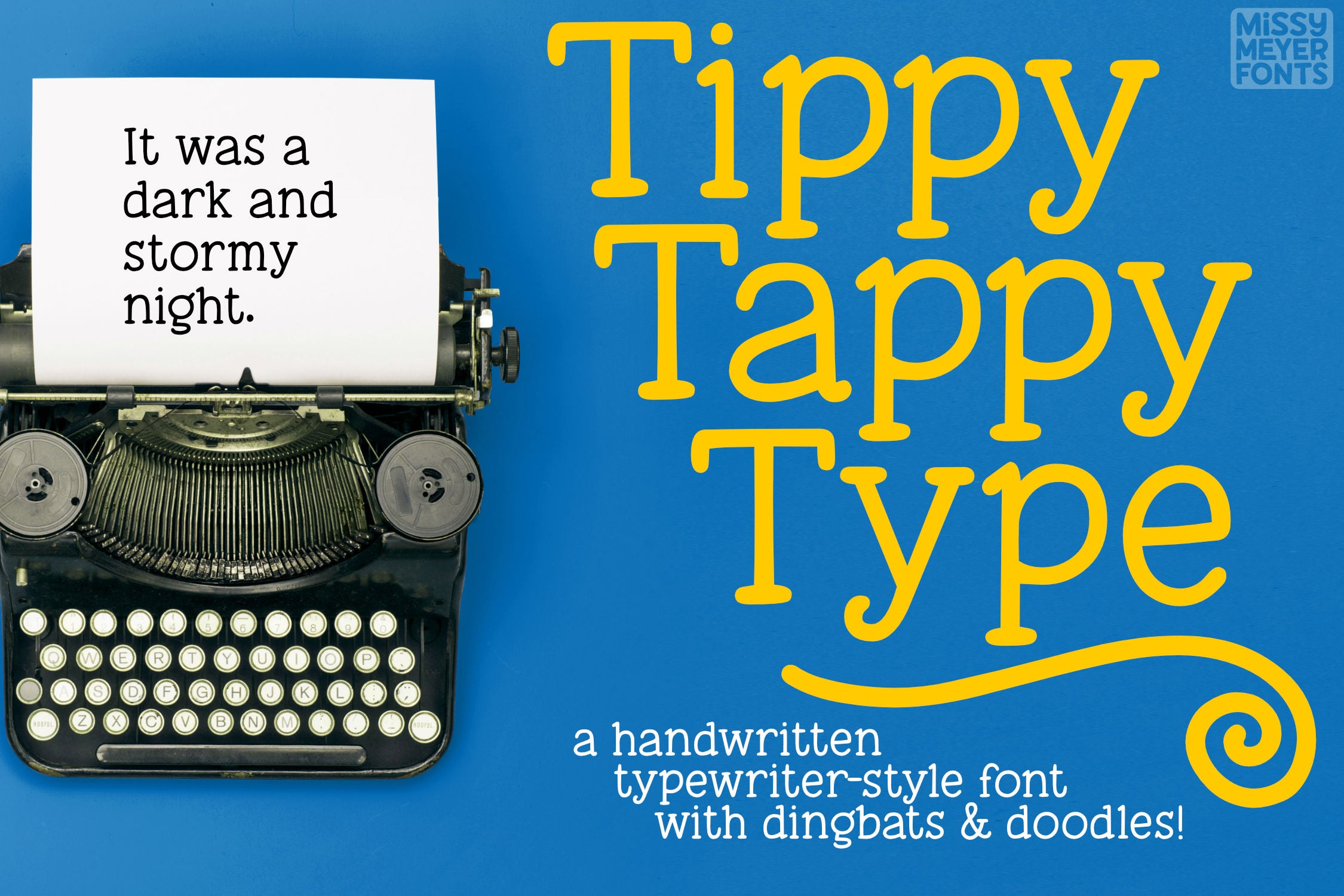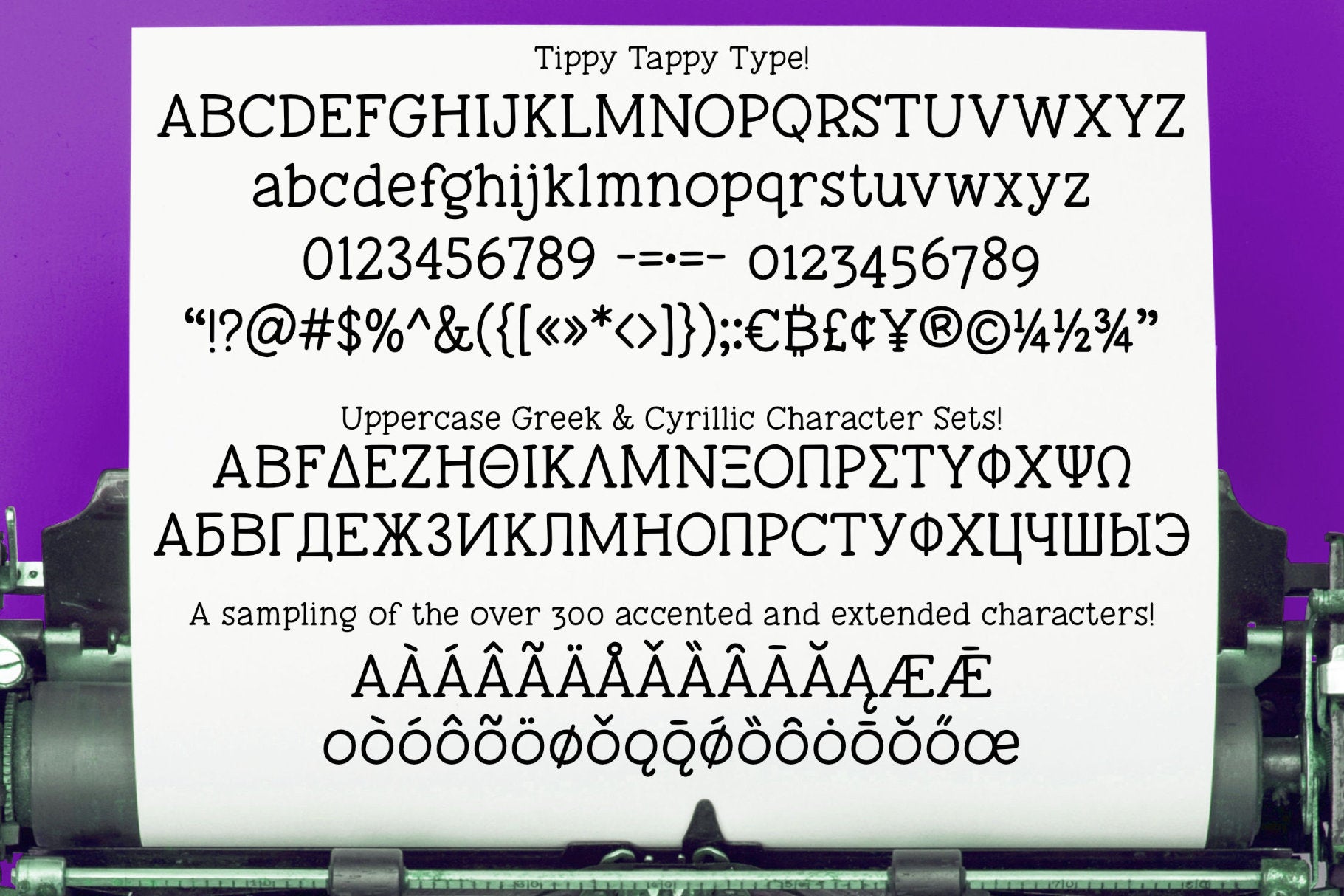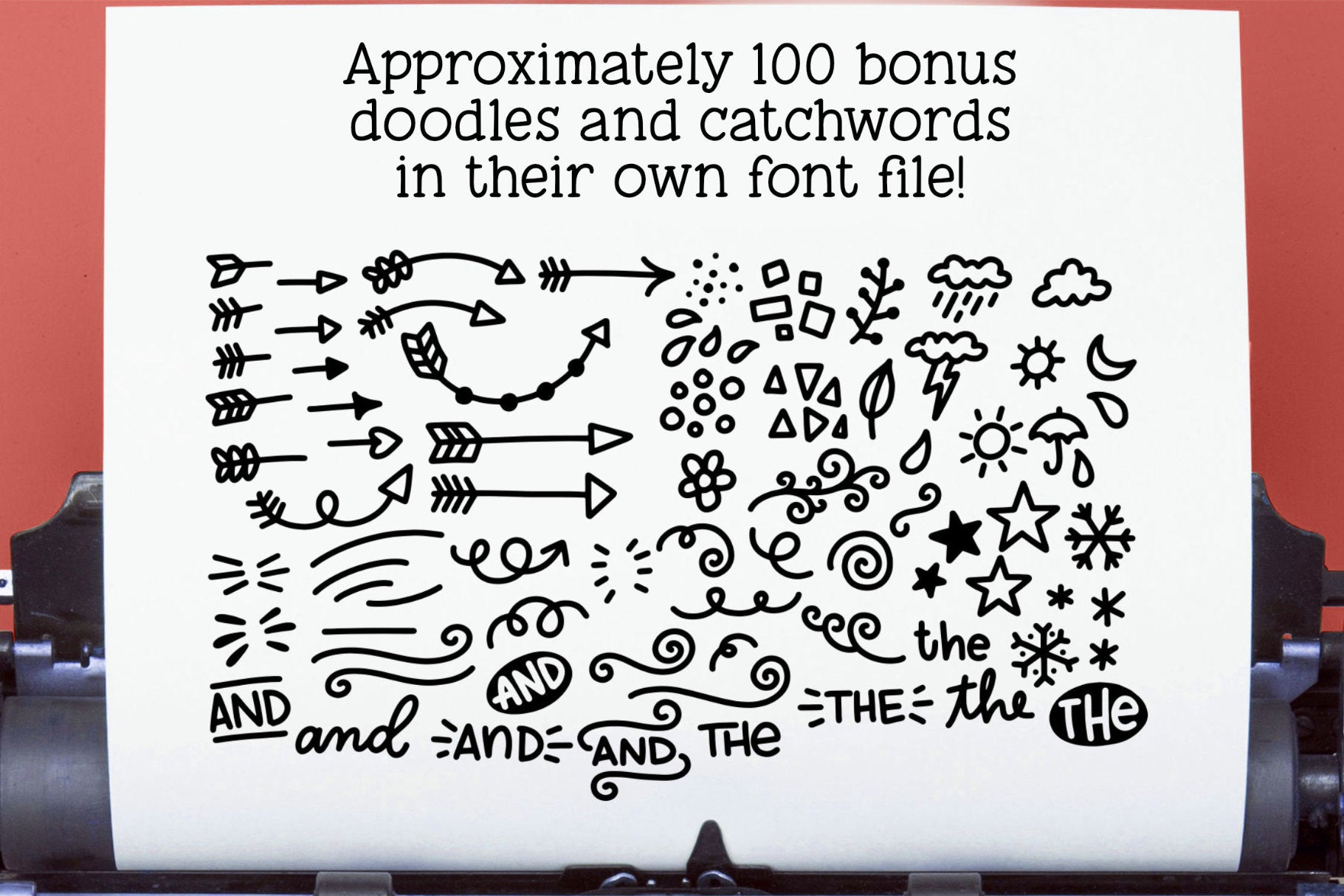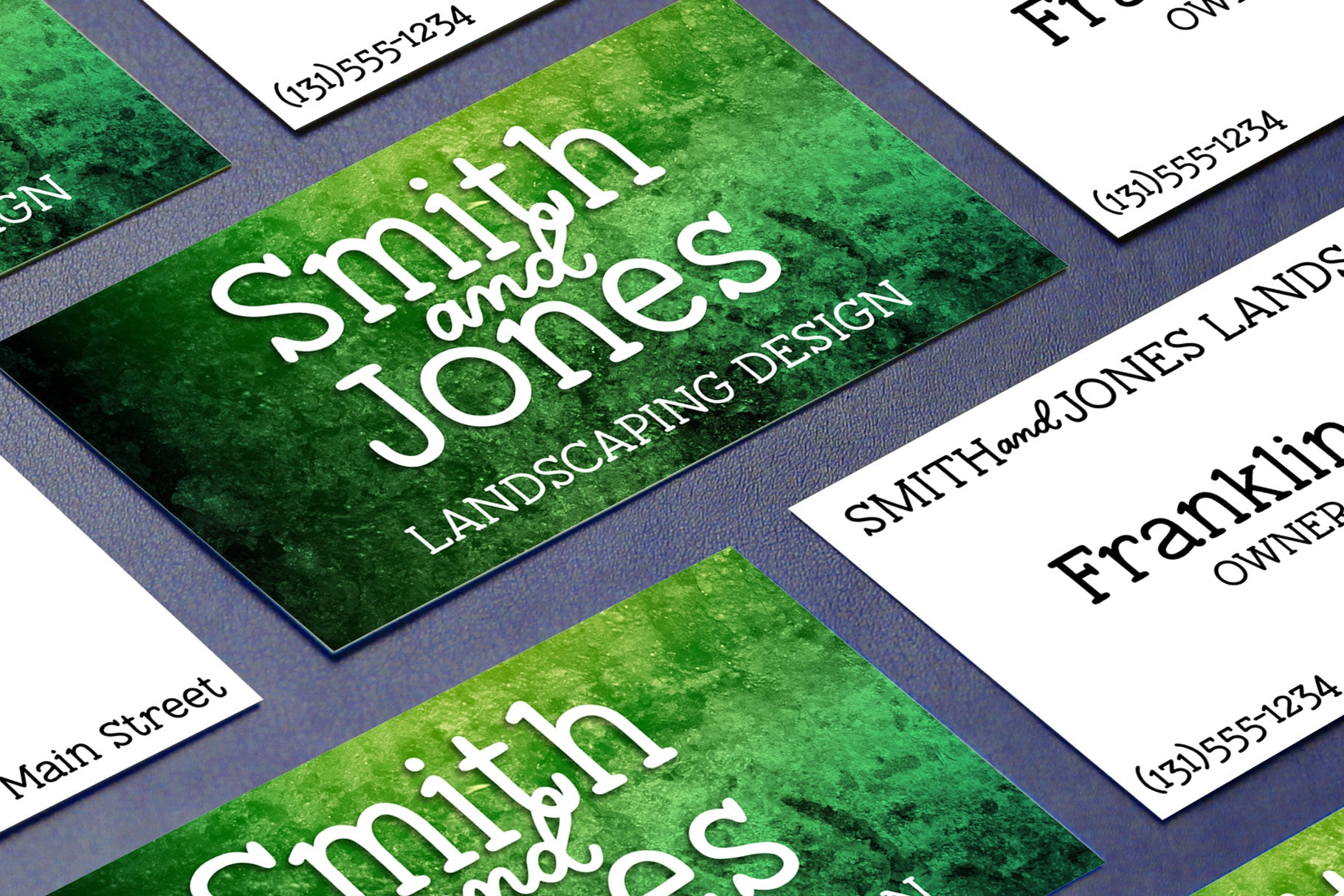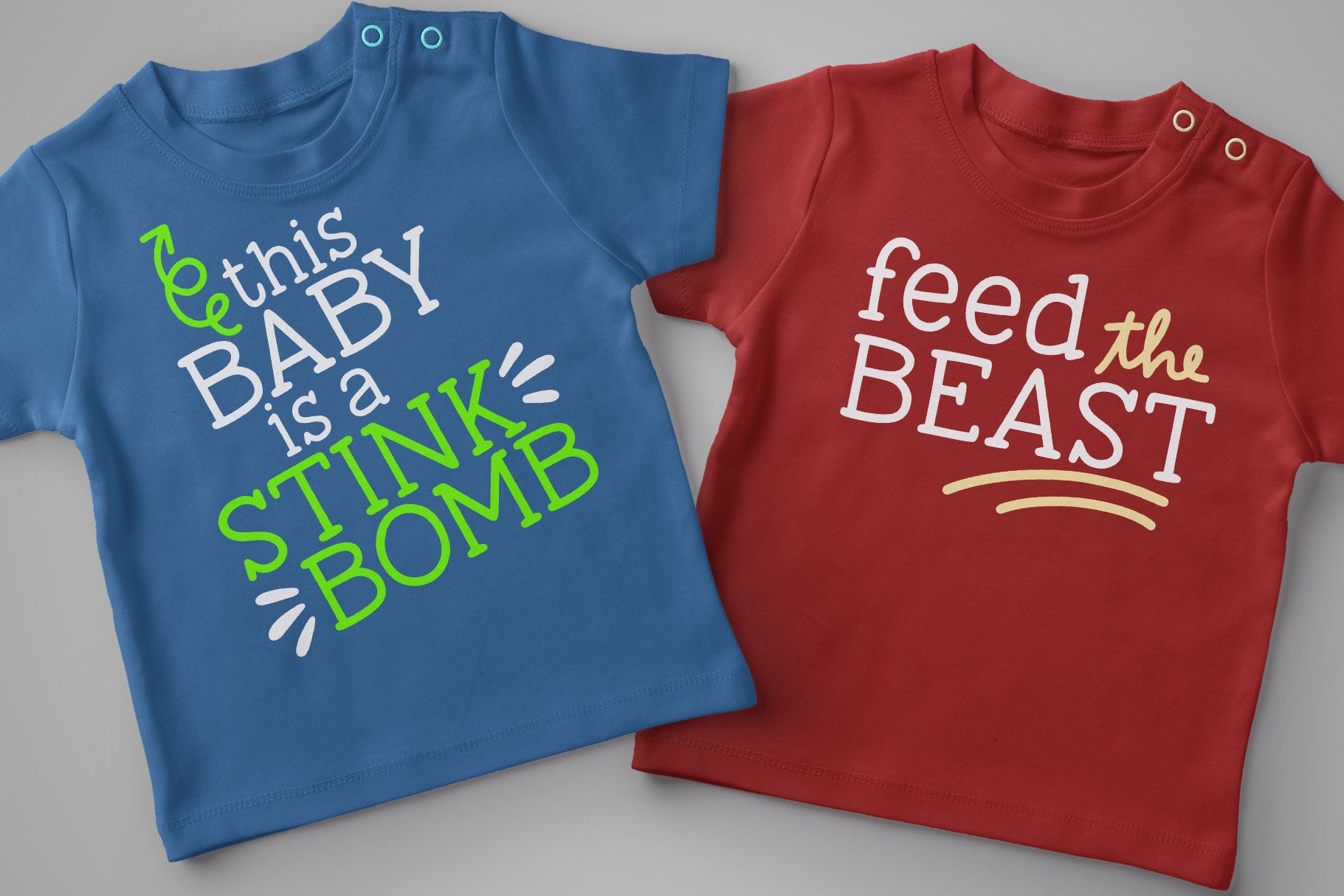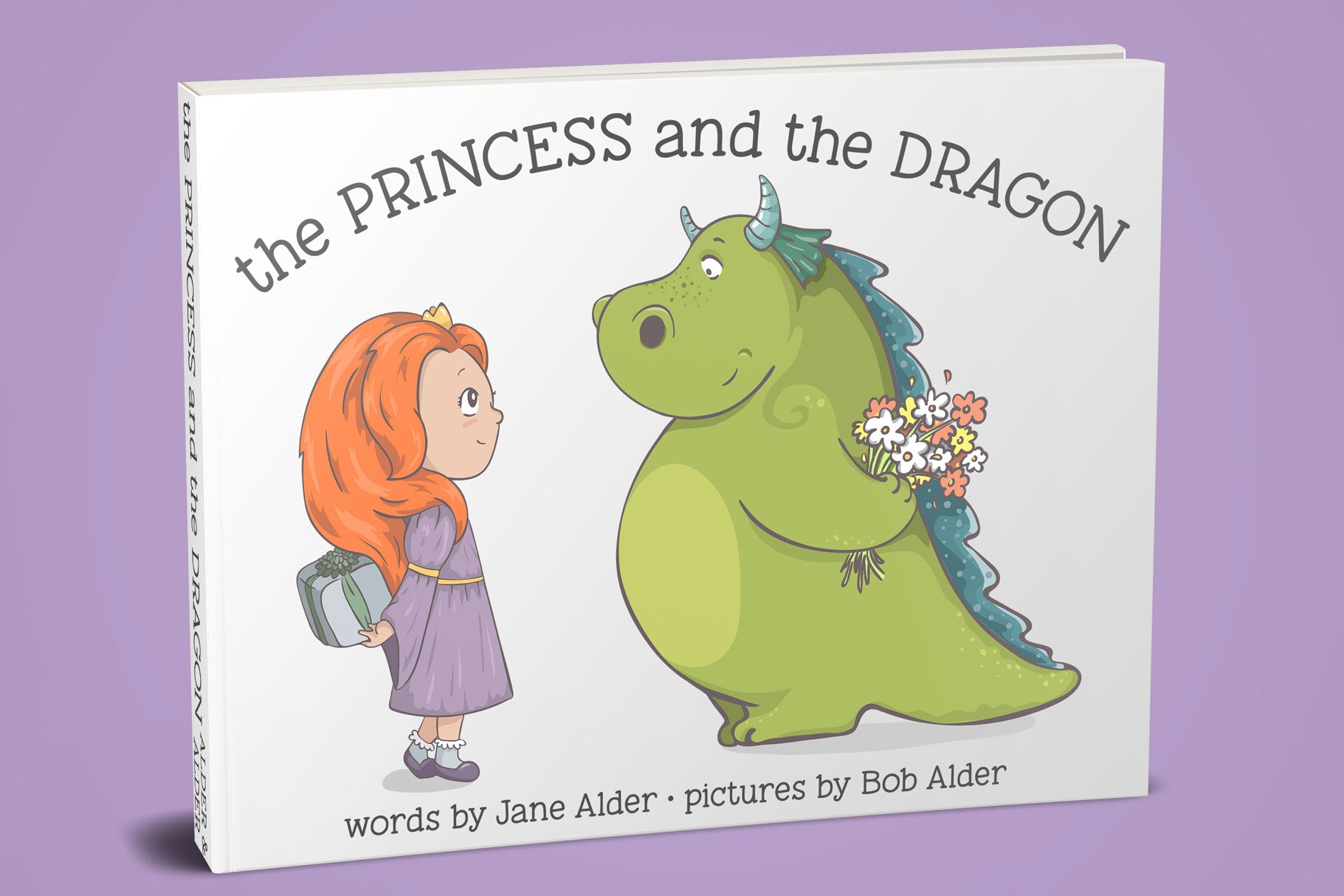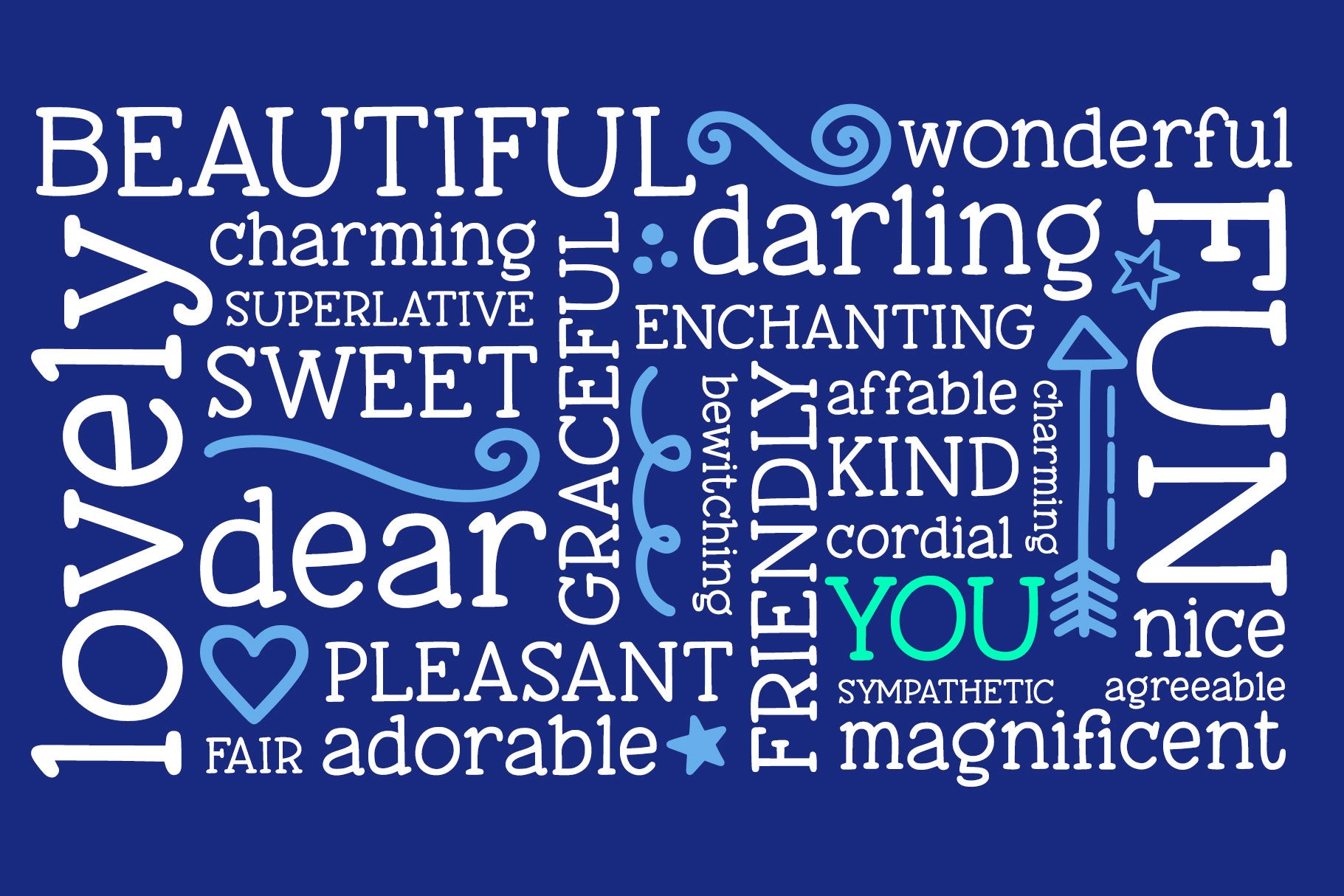
In my house, we refer to typing with just the index fingers of each hand "tippy tappy typing." I'm not good with my thumbs, so if I have to type on my phone, I prefer to set it down flat and tippy tappy type on it.
Thus, when I decided to draw a font that's typewriter-ish, the name seemed perfect!
This one was all draw by hand, then cleaned up so it will both print and cut well. And to make things even more fun, I drew a set of almost 100 bonus items: doodles, shapes, squiggles, swirls, arrows, and catchwords of "and" and "the". They're included in the separate "Tippy Tappy Dingbats" font file, and they go perfectly with Tippy Tappy Type!
The main Tippy Tappy Type font file includes the usual basic characters (A–Z, a–z, 0–9, and tons of punctuation). It also has over 300 extended Latin characters for Western European language support, and alternate oldstyle figures.